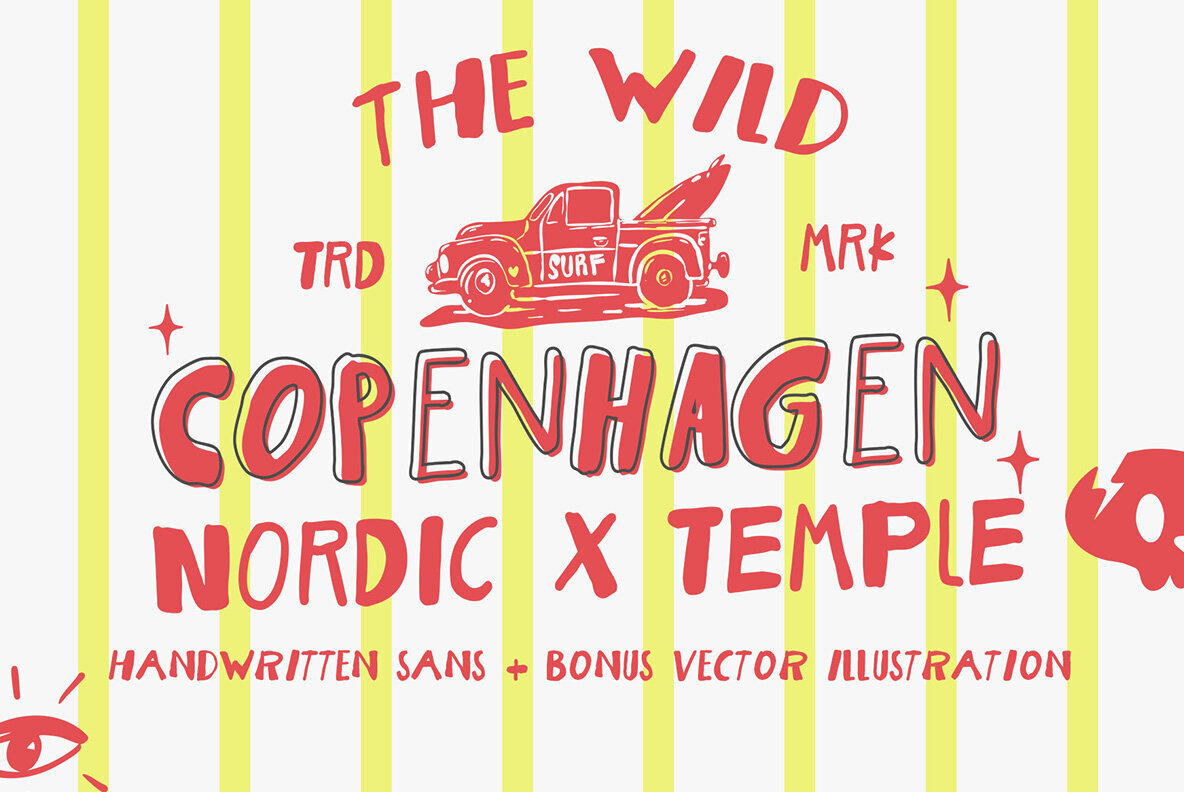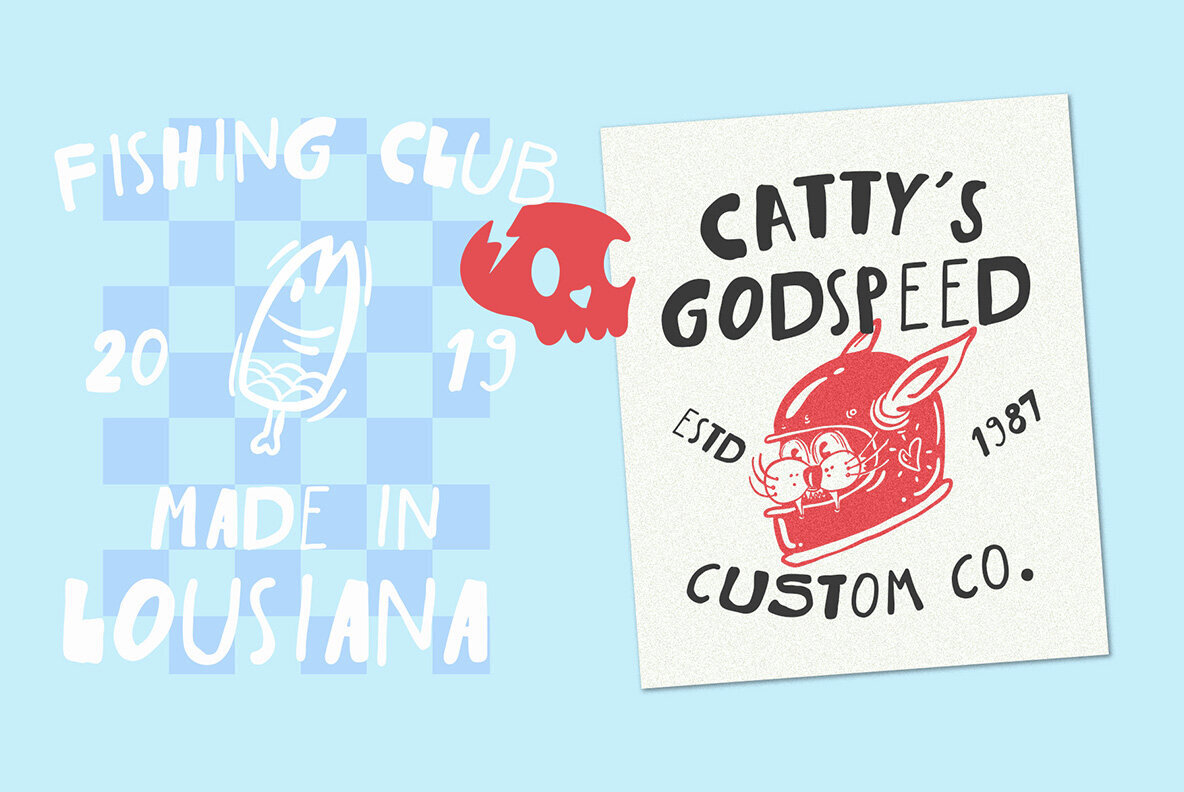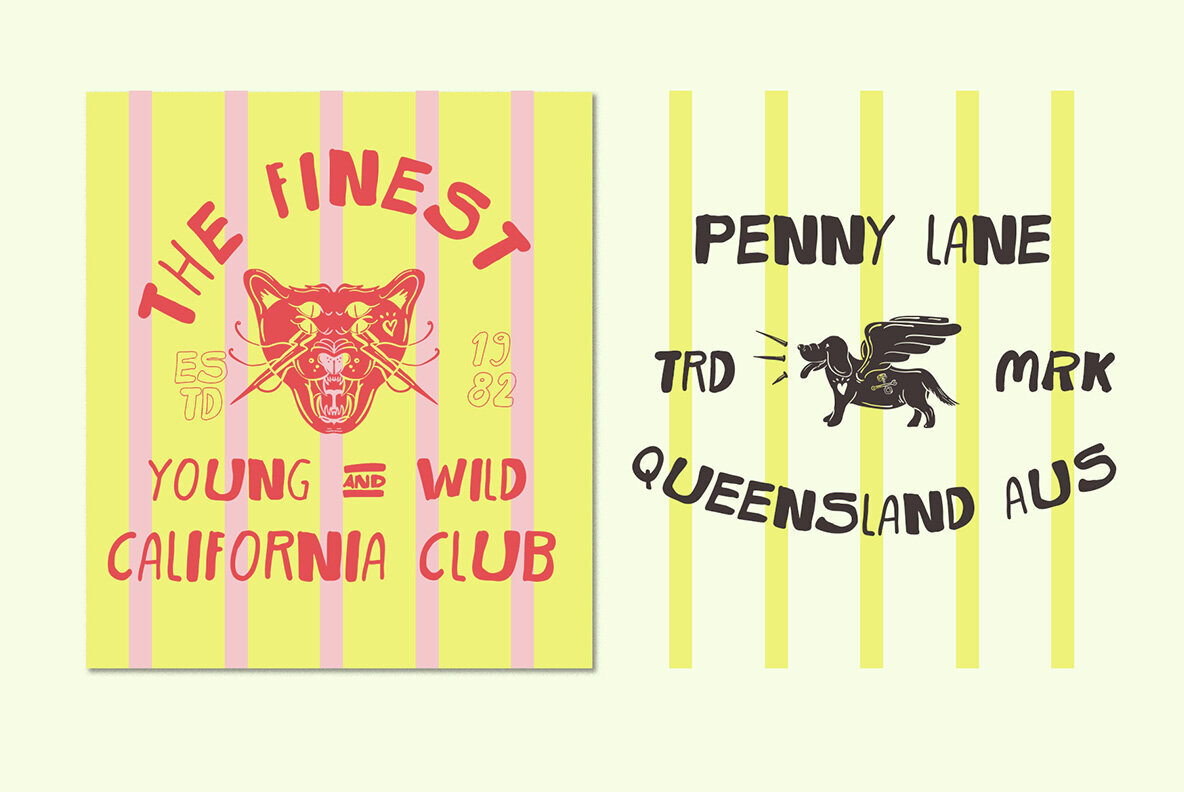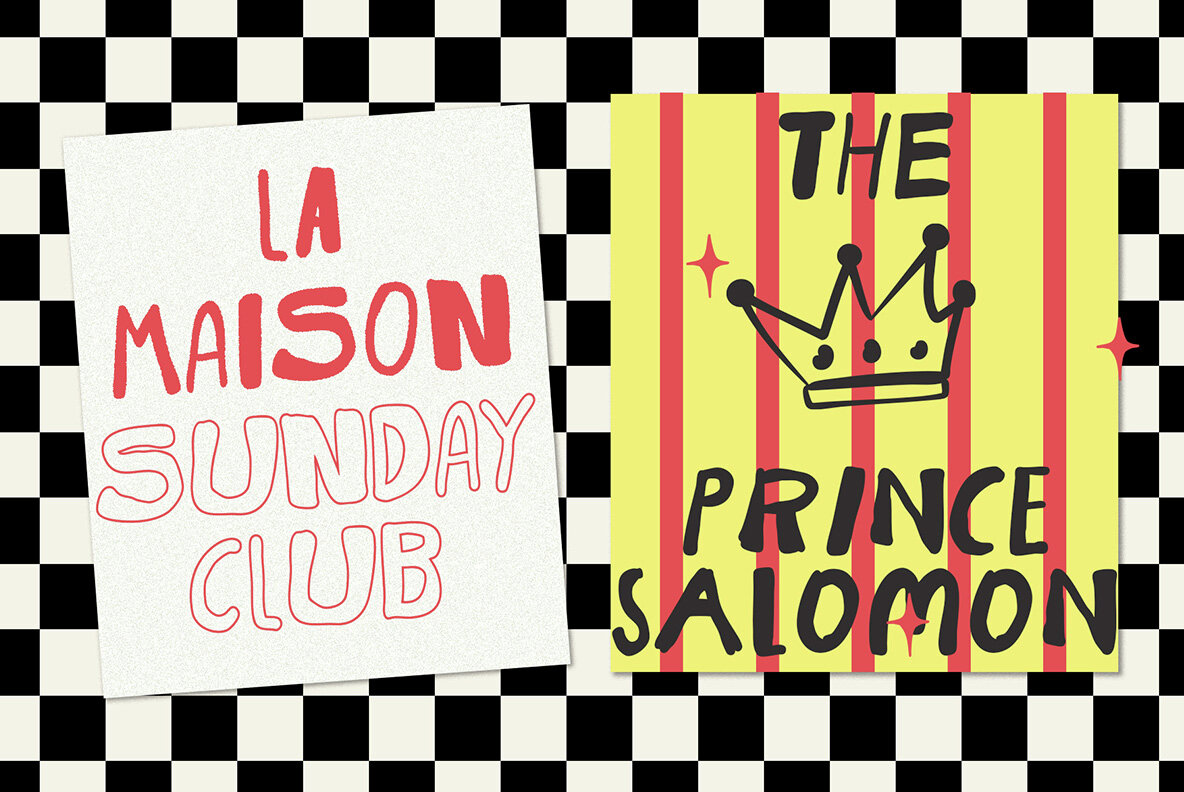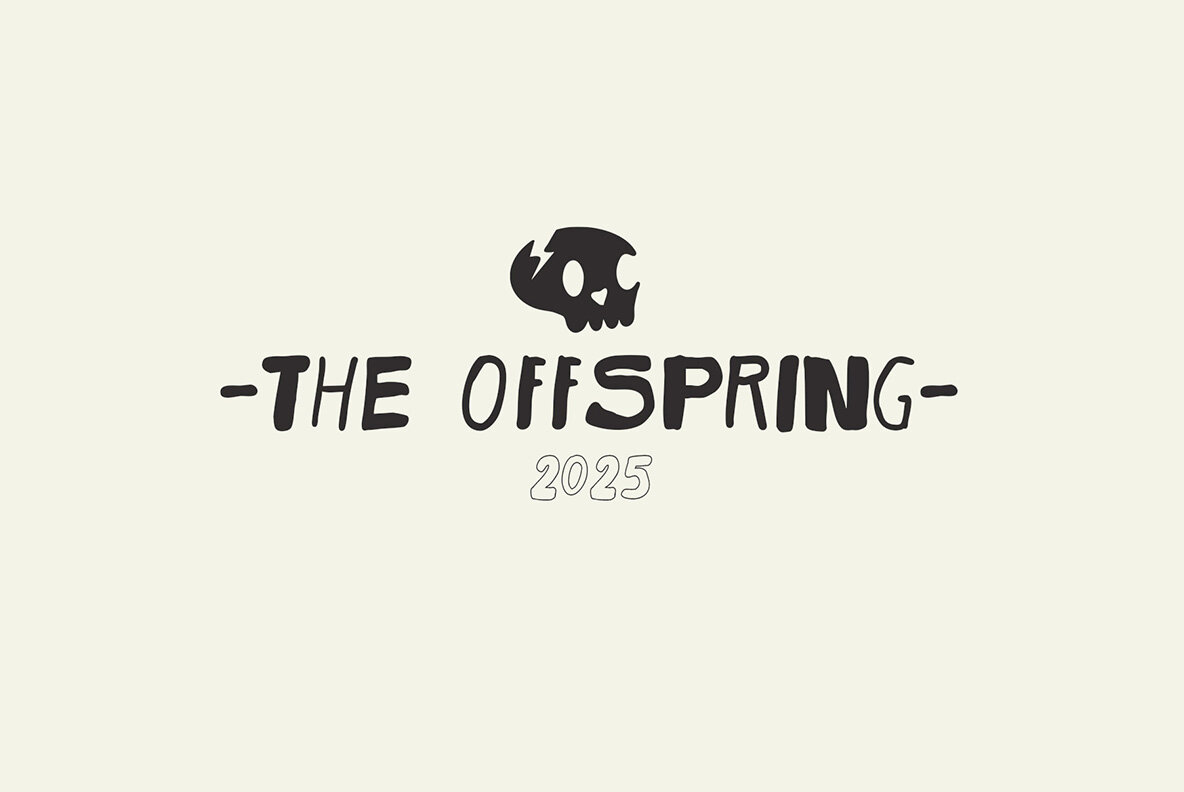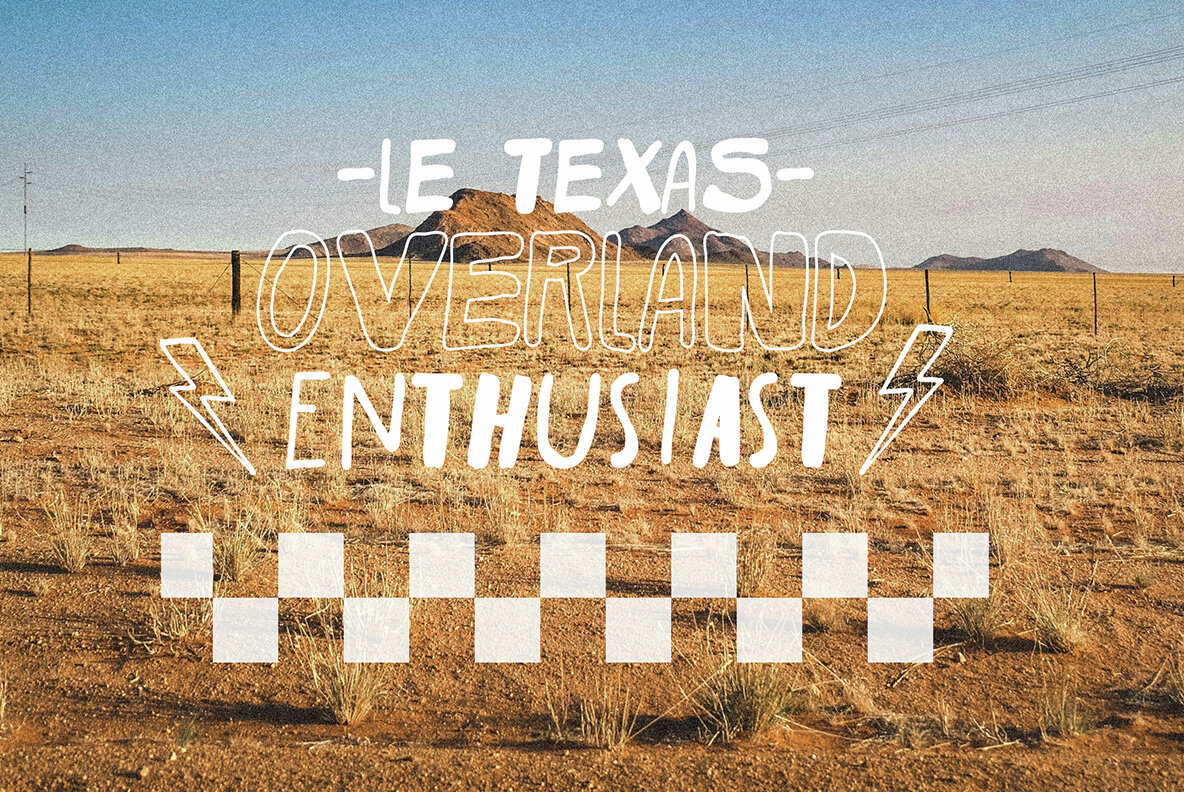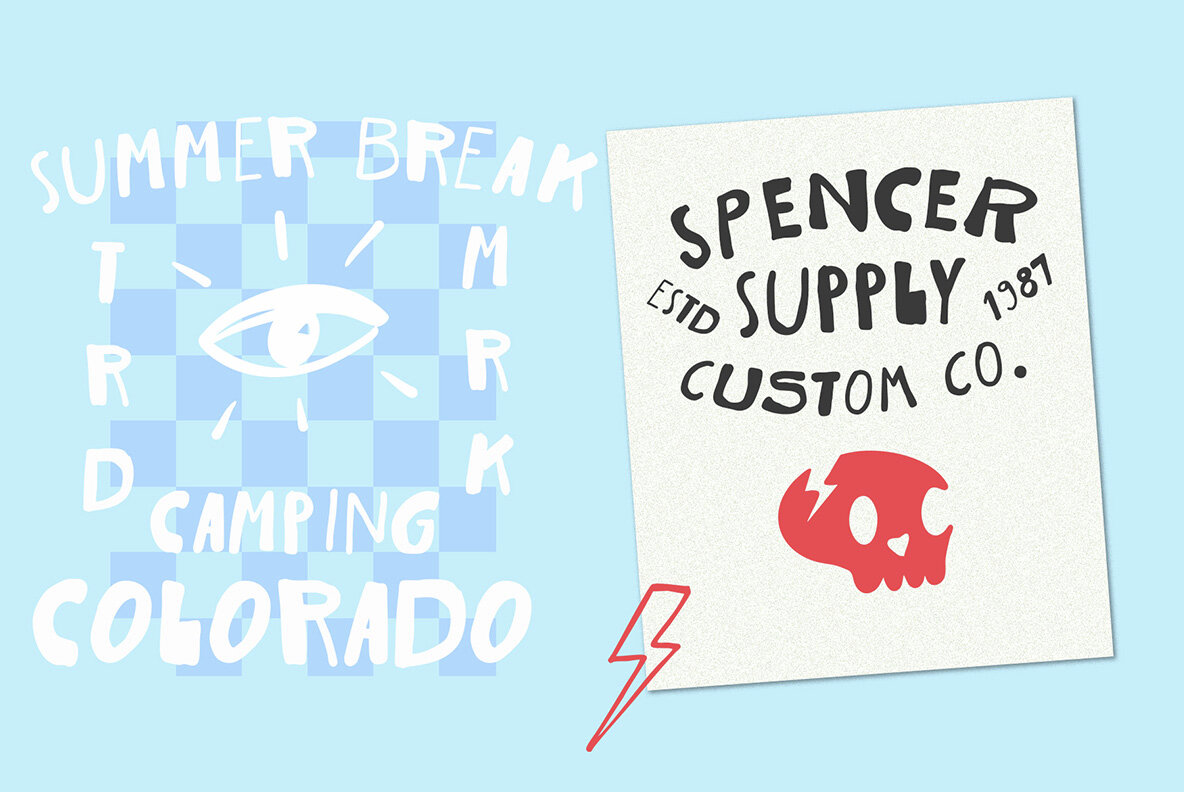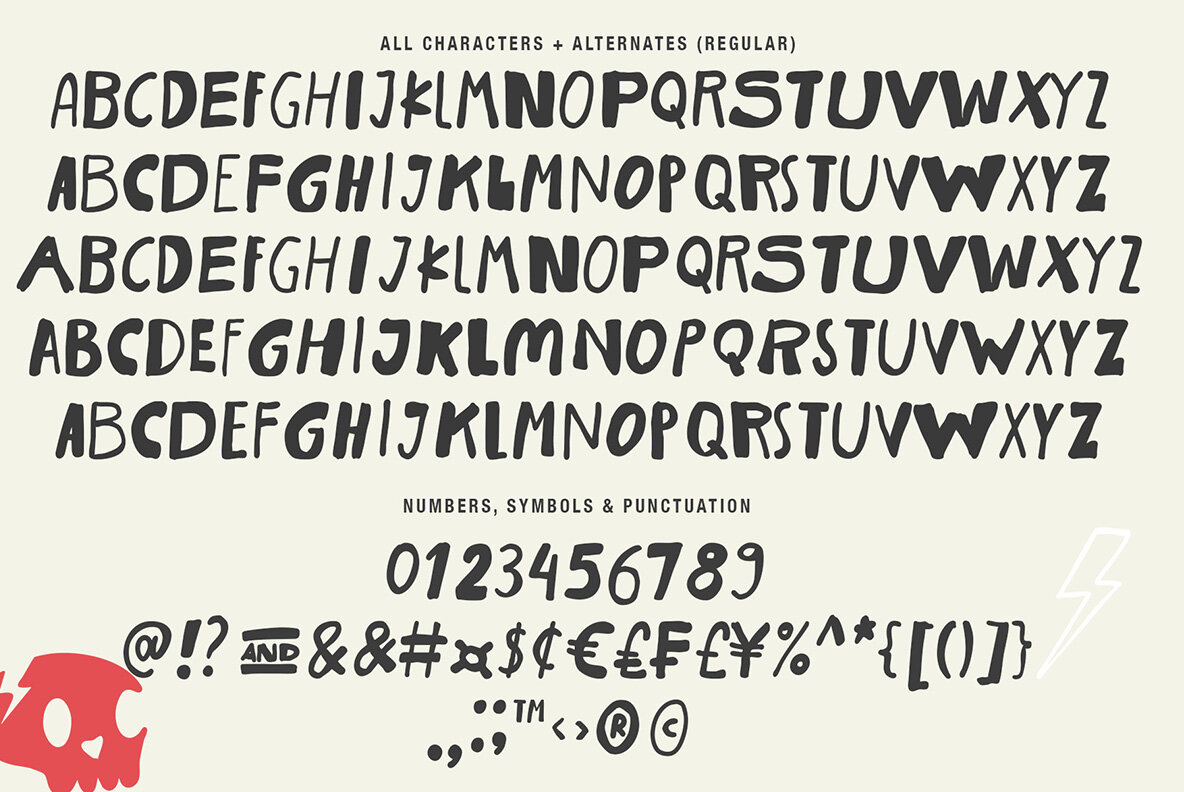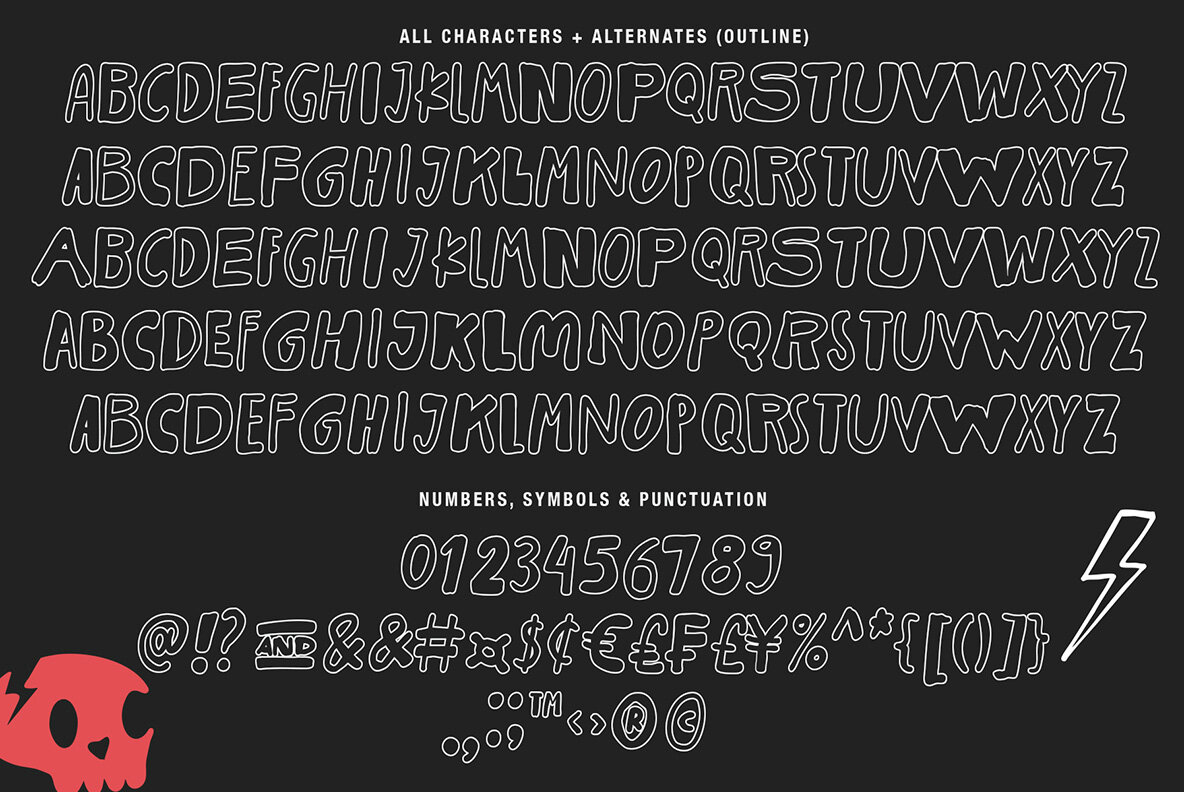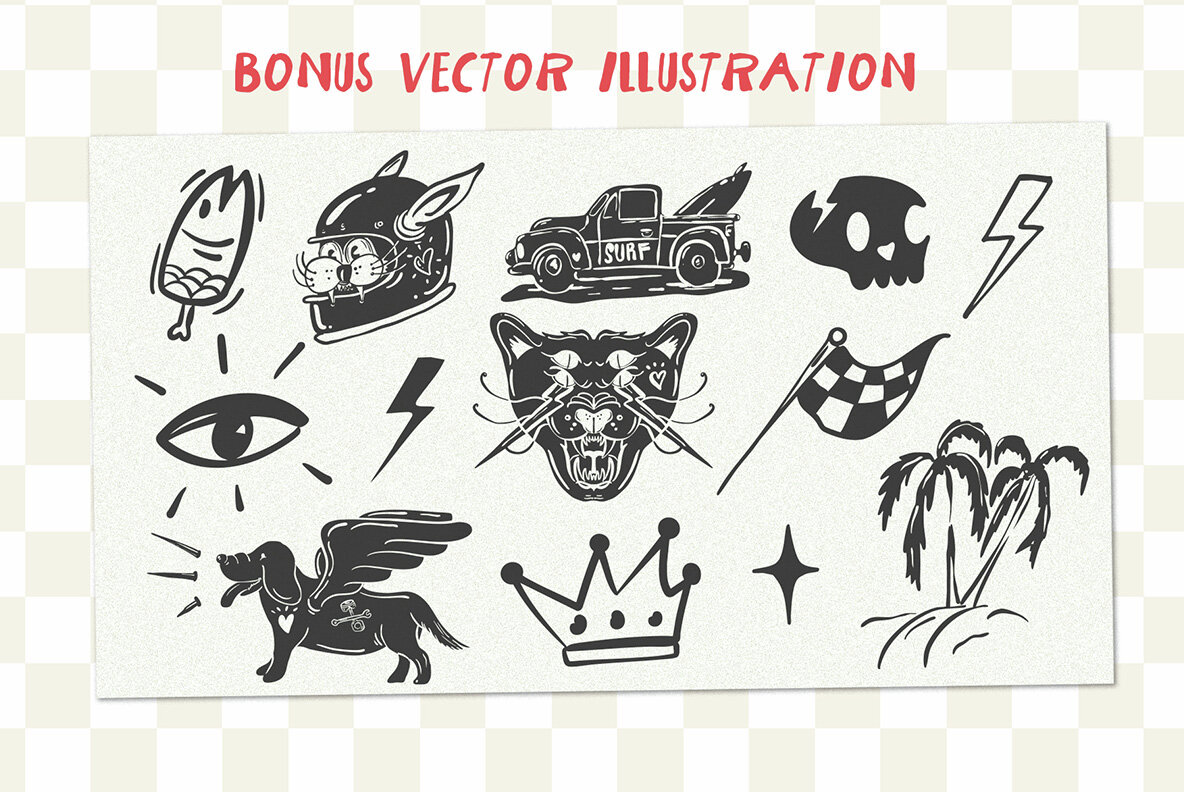
The Wild Copenhagen Font
The Wild Copenhagen
The Wild Copenhagen Outline
Embrace the raw and rebellious essence of Nordic street culture with The Wild Copenhagen. This bold sans-serif font exudes a handmade charm that injects personality into any project. Its unrefined letterforms bring an authentic touch, well-suited for edgy branding, music posters, urban fashion, or artisan packaging. Features: The Wild Copenhagen delivers a clear message with a touch of wildness, ideal for logos, headlines, or captivating quotes. Bonus: A set of custom vector illustrations is included, providing adaptable elements for posters, branding, or social media.The Wild Copenhagen: Untamed Nordic Sans-Serif